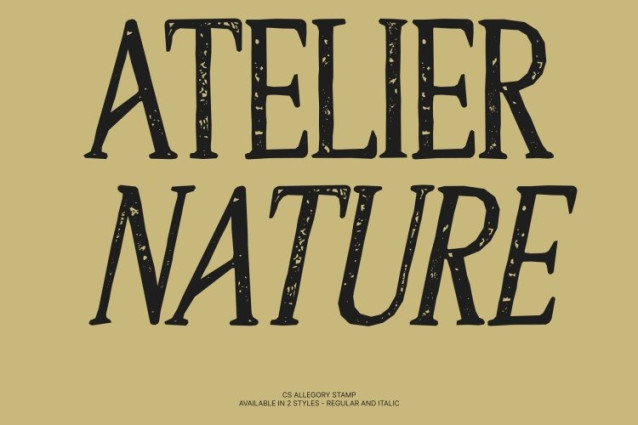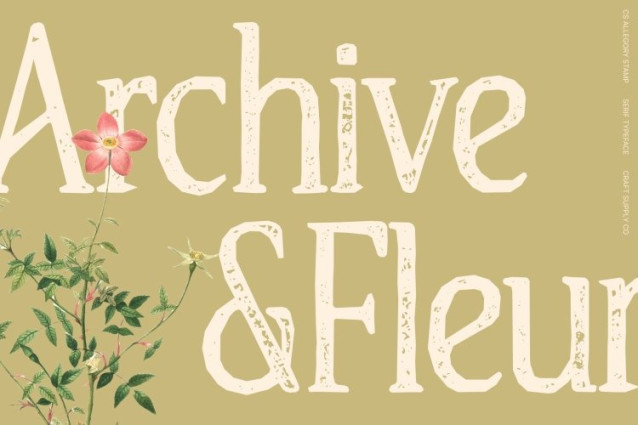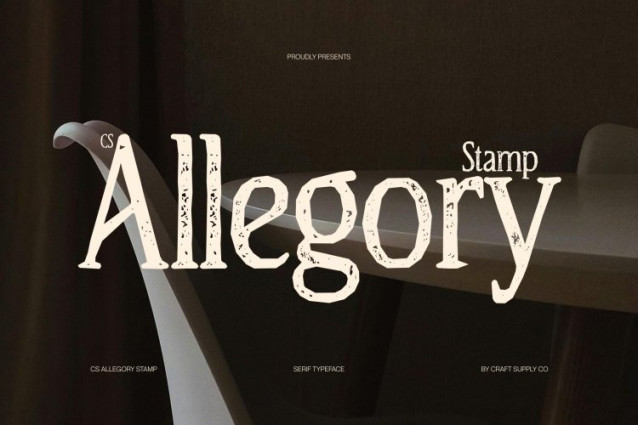
CS Allegory Stamp Font
CS Allegory Stamp Font – This refines its Renaissance-inspired serif structure with a subtle stamped texture that enhances its artisanal heritage. The graceful curves and balanced proportions remain poised and sophisticated, now enriched with delicate ink variations and softly distressed edges that evoke traditional printing craftsmanship. The result is a typeface that feels both historically rooted and visually contemporary.
Refined Curves with Luxurious Character
Each letter retains its sculpted precision and elegant contrast, while the stamped finish introduces warmth and tactile authenticity. The flowing serifs and controlled line weight gain added depth, creating a luxurious impression that radiates intellect, heritage, and quiet confidence across both print and digital applications.
Harmony Between Tradition and Modern Expression
By blending classical Renaissance influence with modern typographic clarity, this font achieves a seamless balance of past and present. The textured detailing softens its formal structure, allowing it to complement minimalist layouts while still elevating more ornate compositions with grace and authority.
Perfect for Editorial and Premium Branding
Ideal for book covers, editorial spreads, luxury branding, refined packaging, and sophisticated logotypes, communicates heritage and enduring beauty. Its fusion of timeless serif elegance and stamped character ensures every design feels polished, expressive, and crafted with intention.